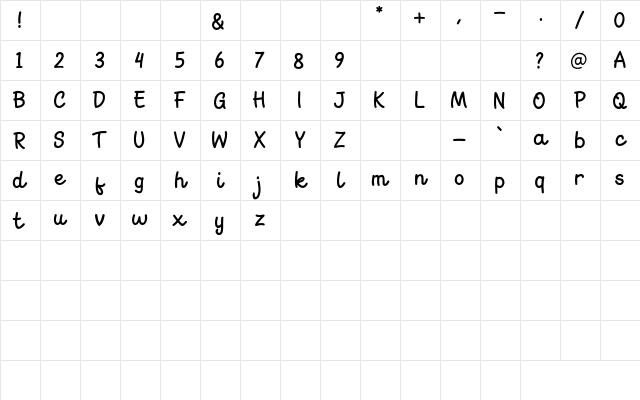
Go Melon Regular
Foundry: Polah
Designer: Polah
Design Context for Go Melon
Go Melon is a composed and adaptable typeface that performs quietly and consistently across a wide range of design contexts.